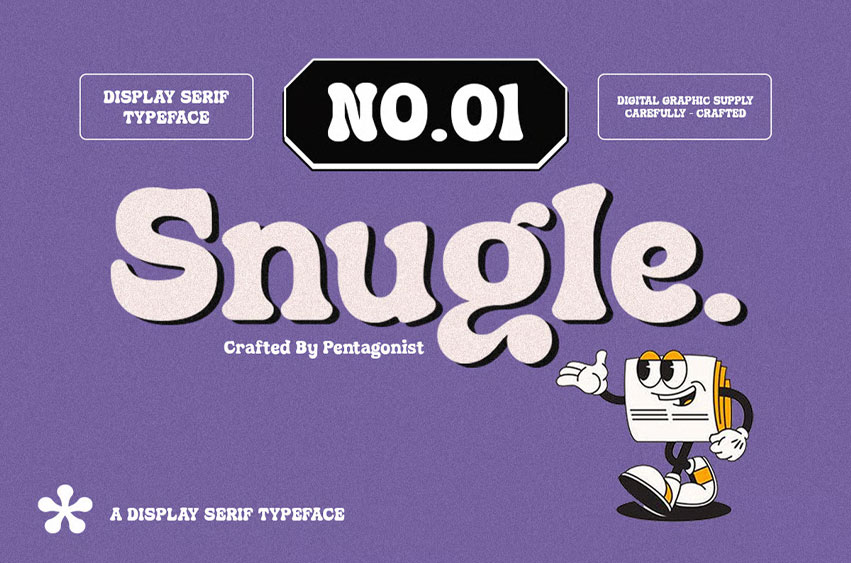
Snugle Font Is A Fancy Display Character Inspired By Retro and Vintage Style.
It is suitable for flyers, posters, novels, letterheads, or any design requirements you want to be awesome.